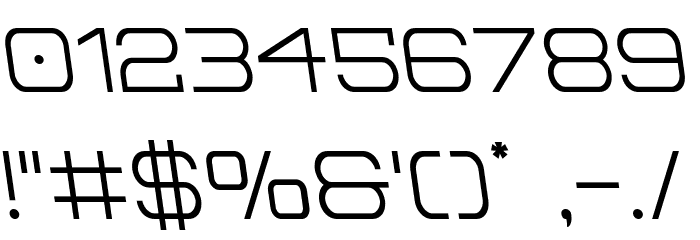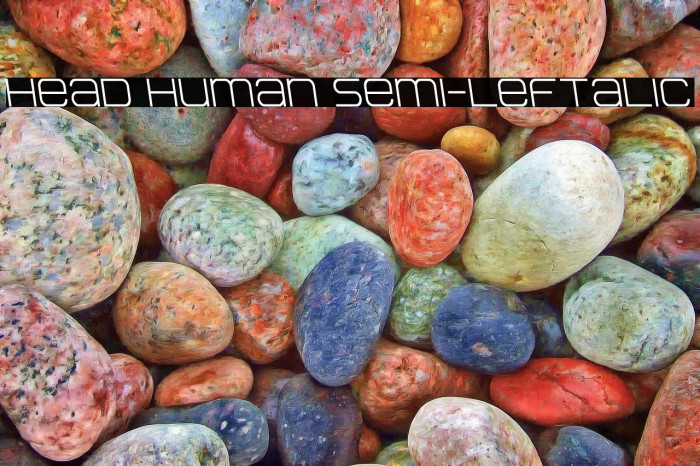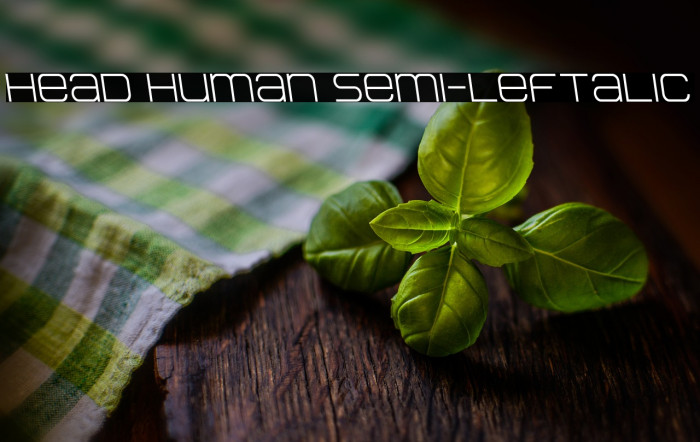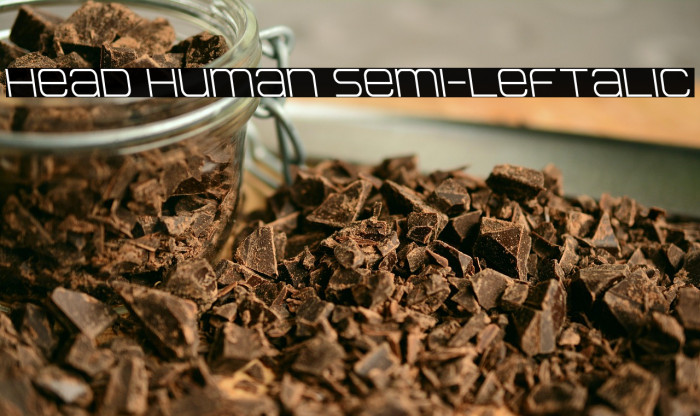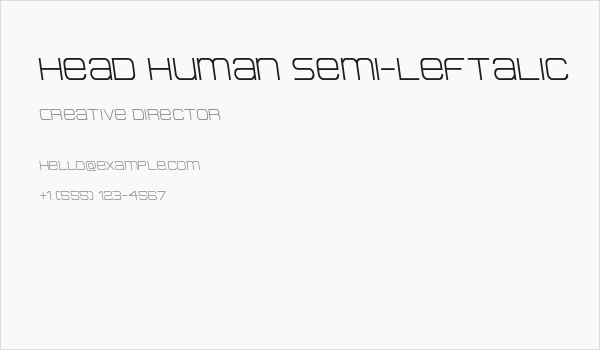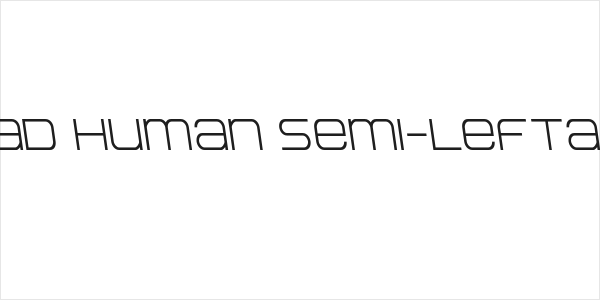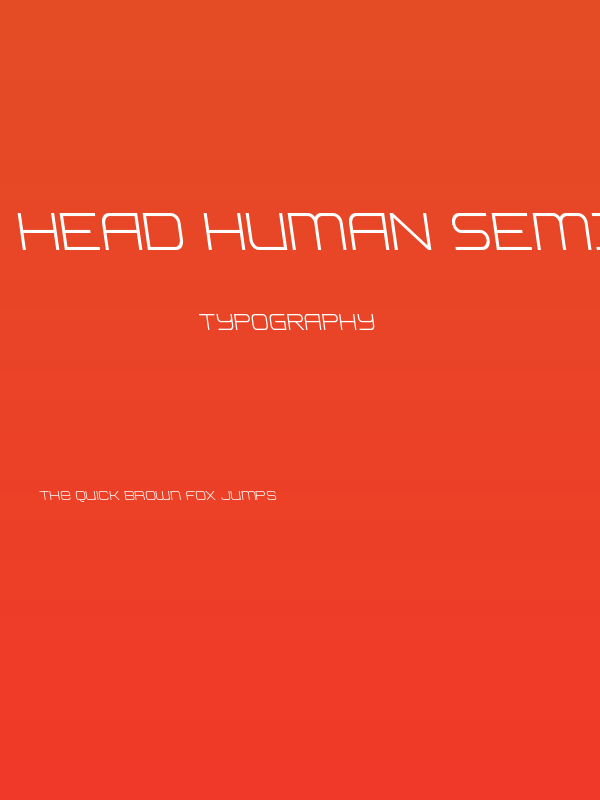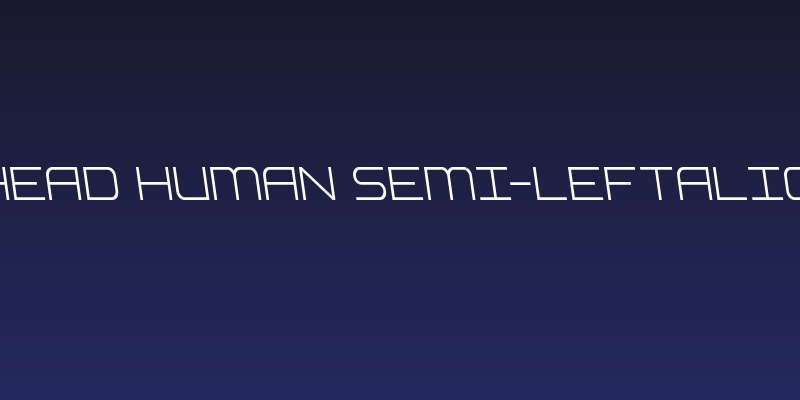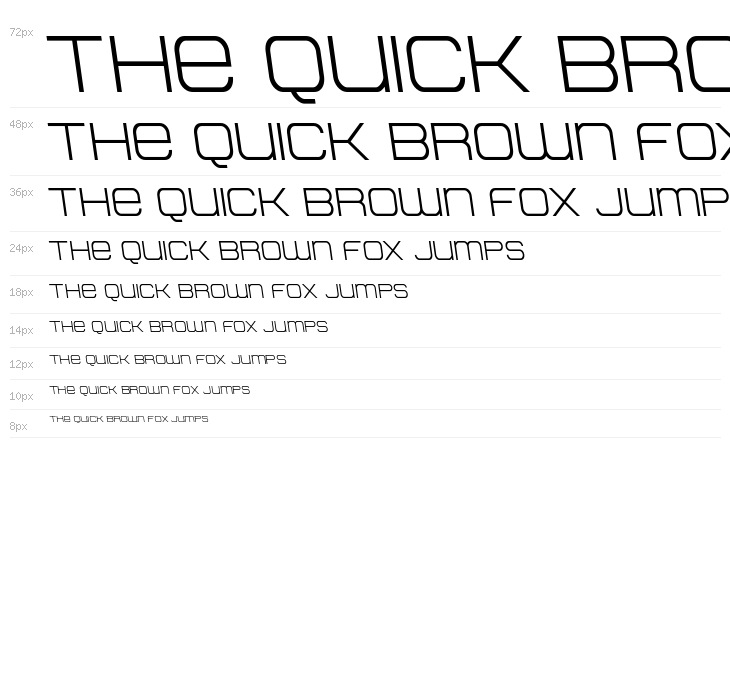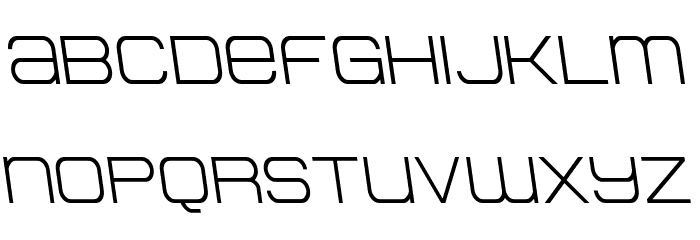
Head Human Semi-Leftalic Font
Head Human Semi-Leftalic Description
This font features a sleek, modern design with a geometric and slightly condensed structure. The characters are formed with clean, straight lines and rounded corners, giving it a futuristic and technical appearance. The uppercase and lowercase letters maintain a consistent height, contributing to a uniform look. The numerals and special characters follow the same design principles, ensuring cohesion across all elements. This font's style is ideal for projects that require a contemporary and minimalist aesthetic.
| Proposed Projects | Ideal for tech branding, modern website headers, and minimalist poster designs. |